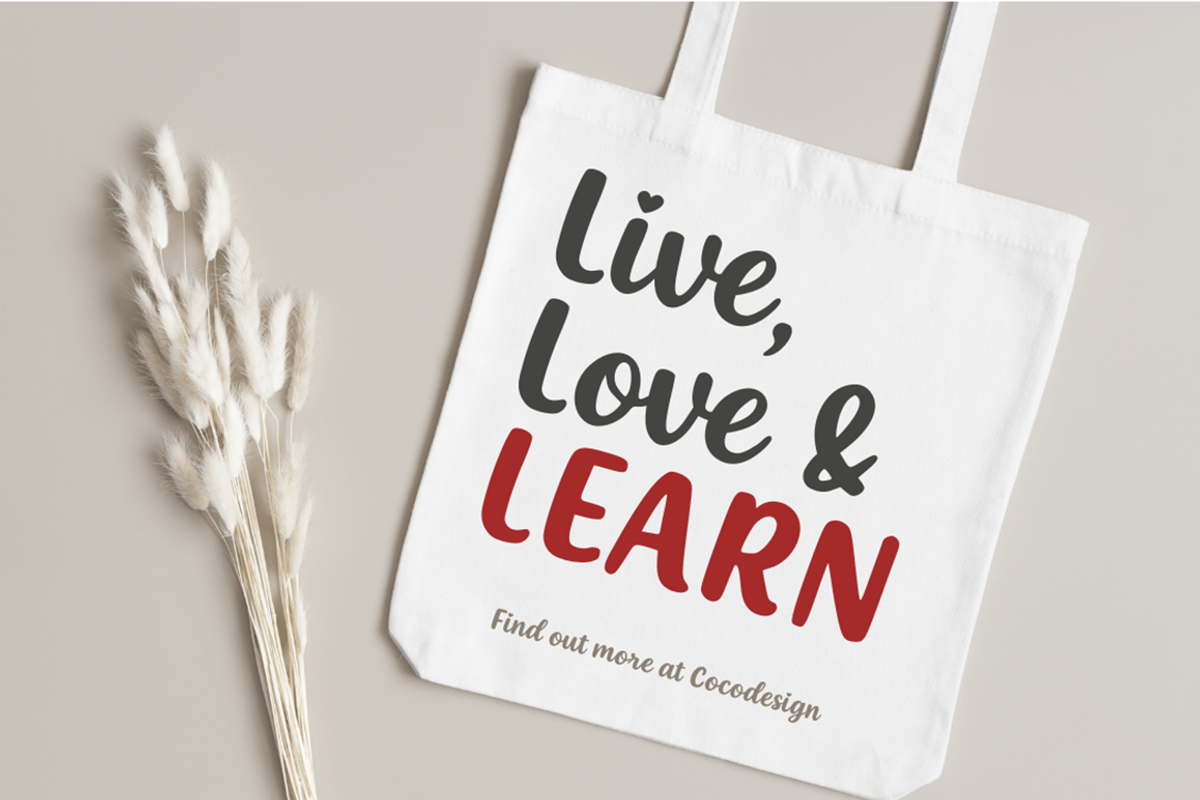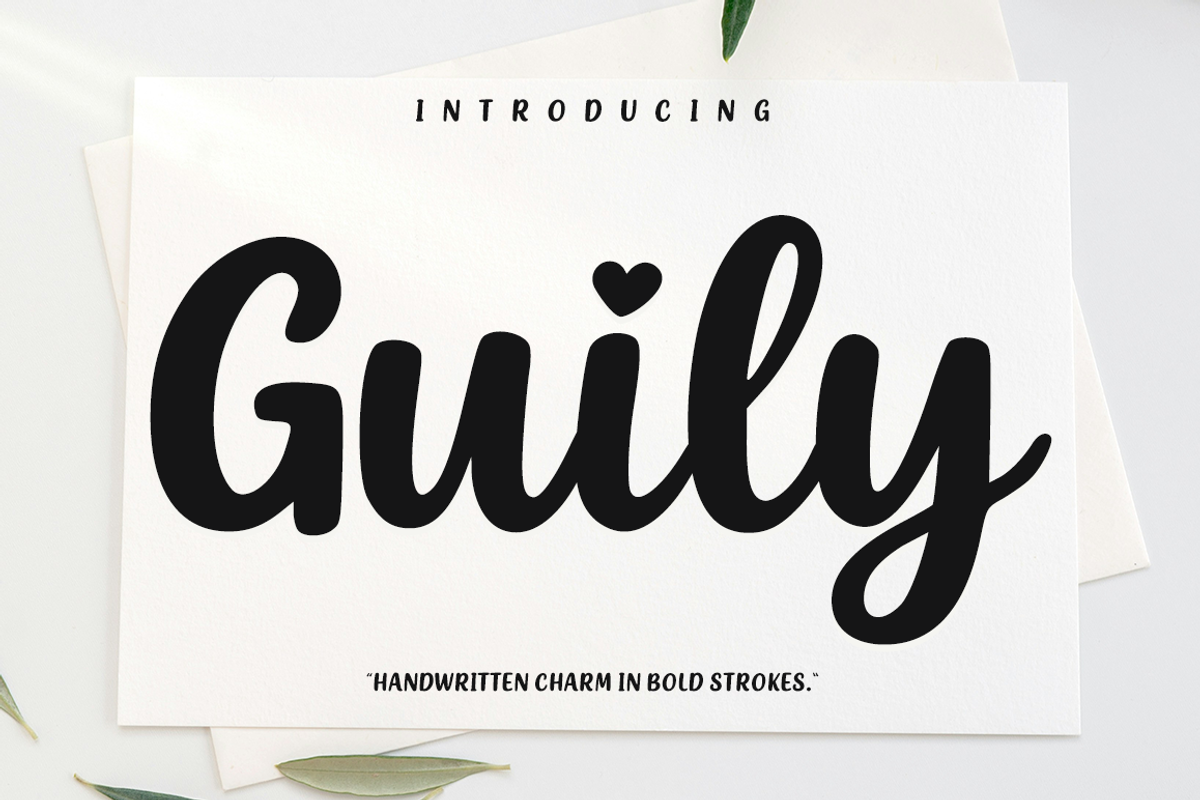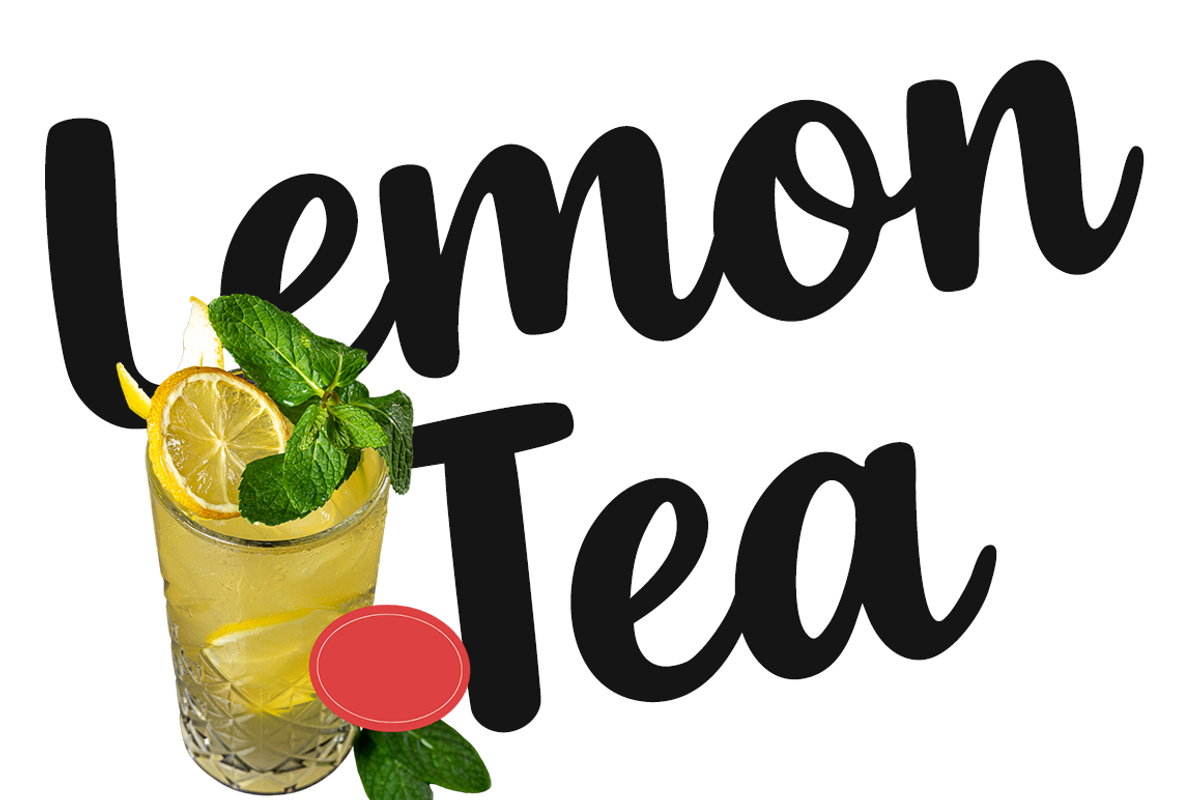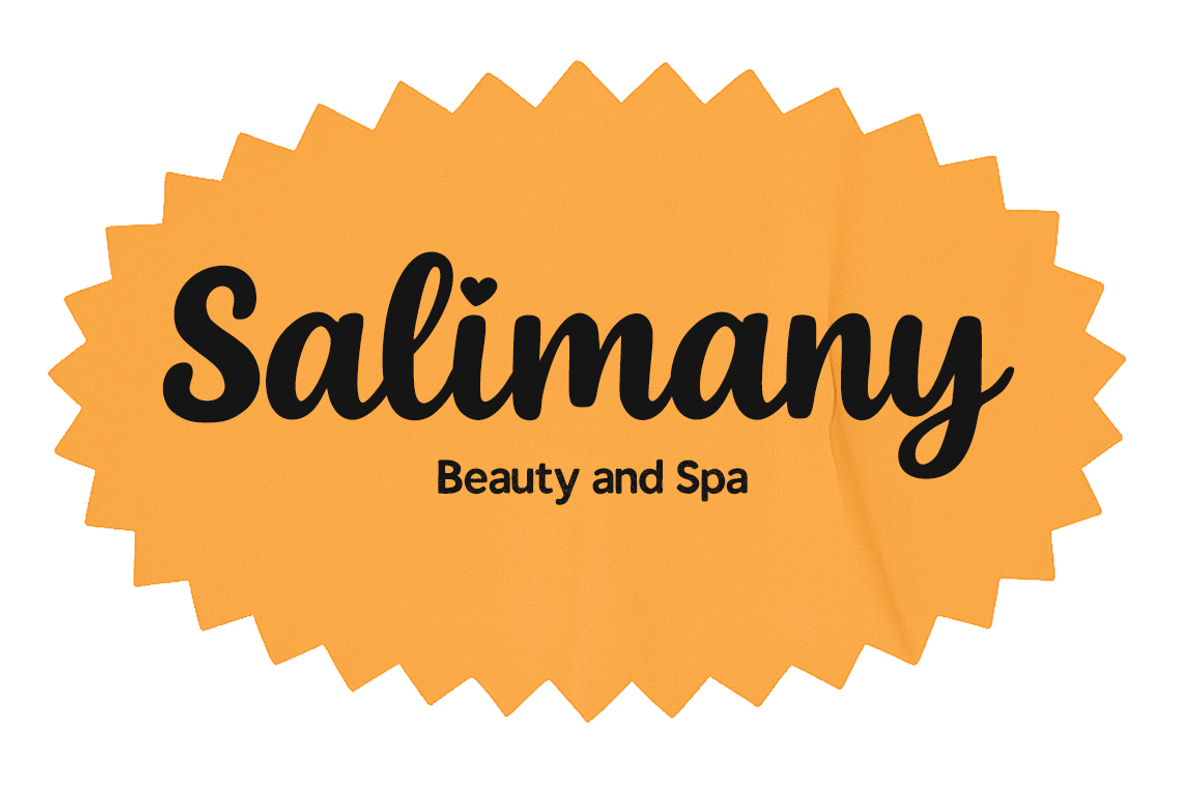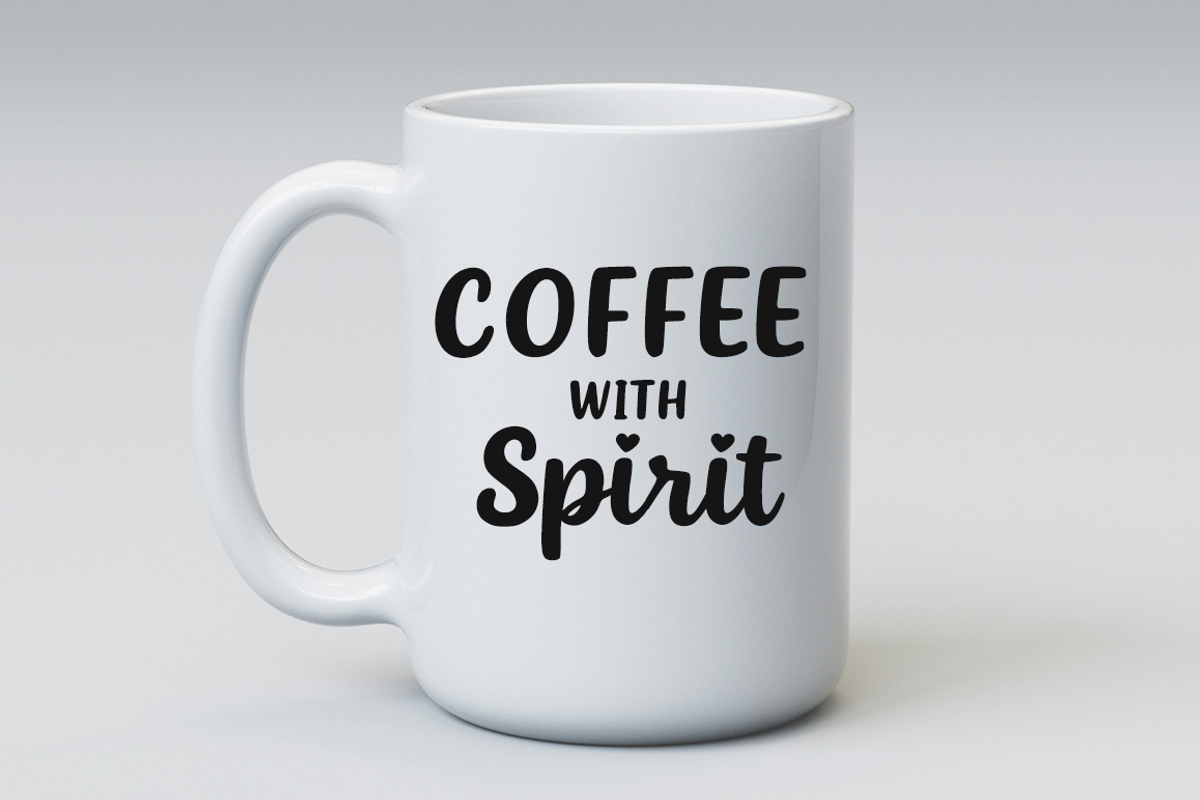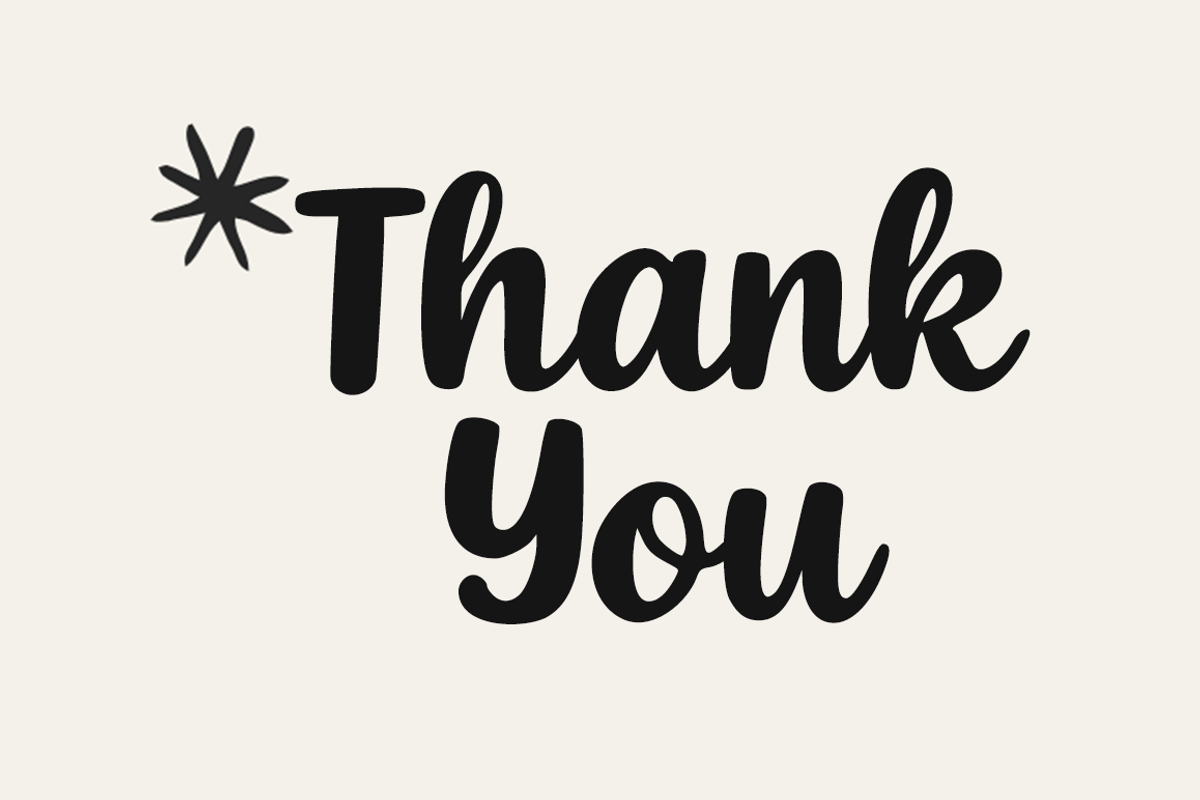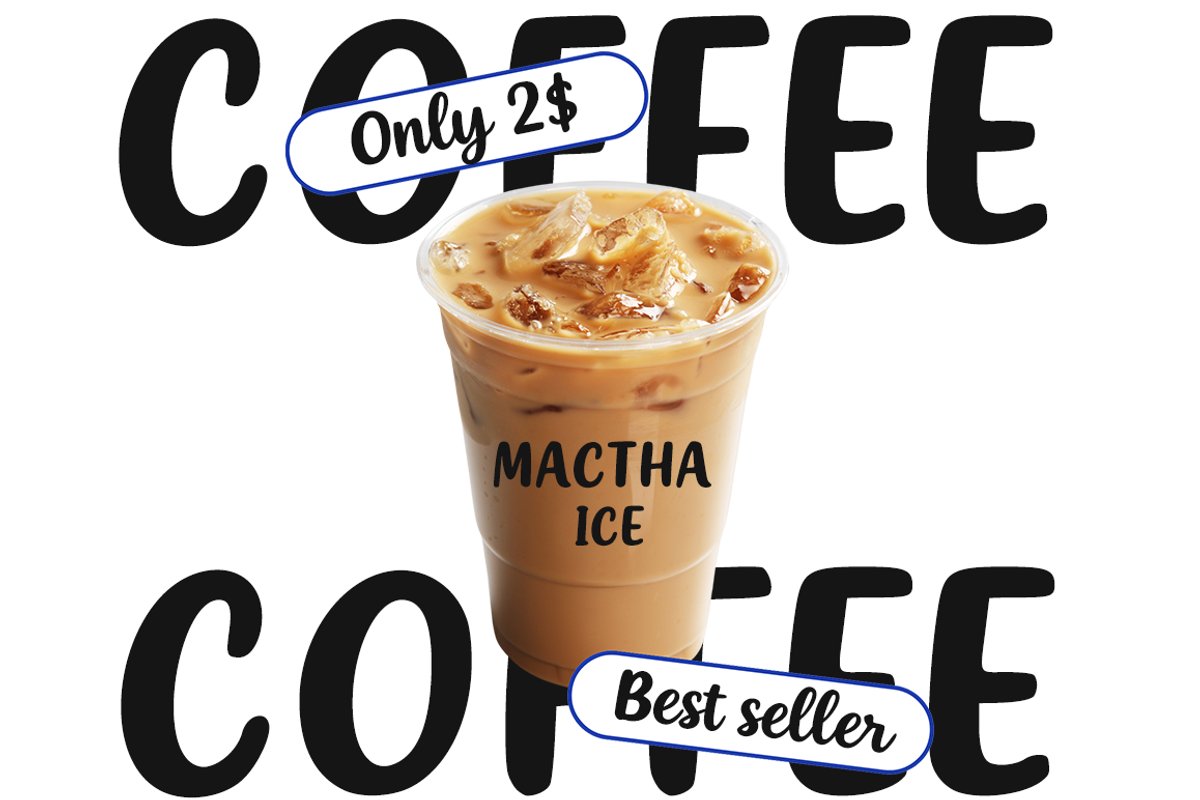
Guily handwriting font
Guily is a bold handwritten script font with smooth, confident strokes. Its rounded curves and friendly letter shapes create a warm, approachable style, while the heart-shaped dot adds a playful touch to the design. Ideal for branding, lifestyle products, social media content, packaging, and decorative projects, Guily blends casual handwriting character with clean, balanced typography. Designed to remain legible in a wide range of sizes, making it versatile for both headings and design accents.